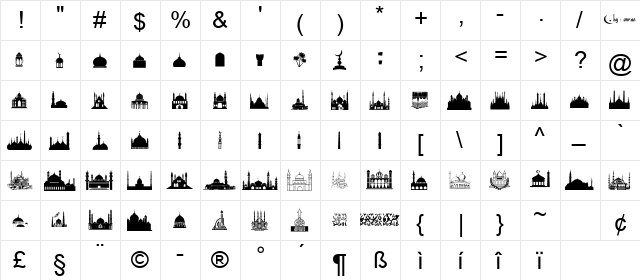
Masjid Al Imran Regular
| Designer | Mr NastZz |
Design Context for Masjid Al Imran Typeface
Masjid Al Imran is a composed and adaptable typeface that performs quietly and consistently across a wide range of design contexts.